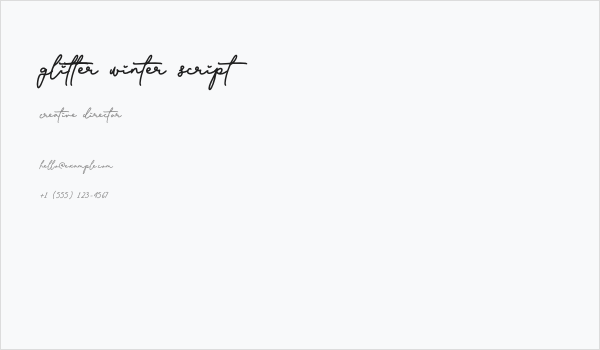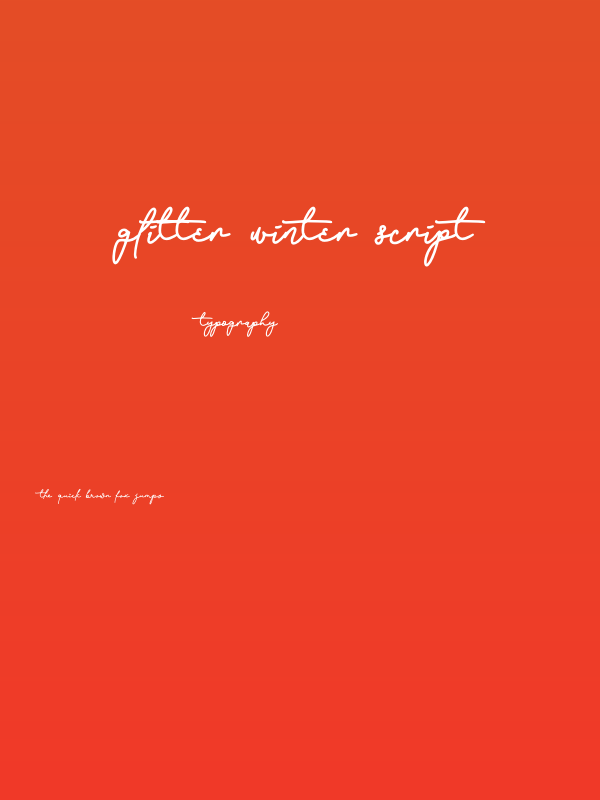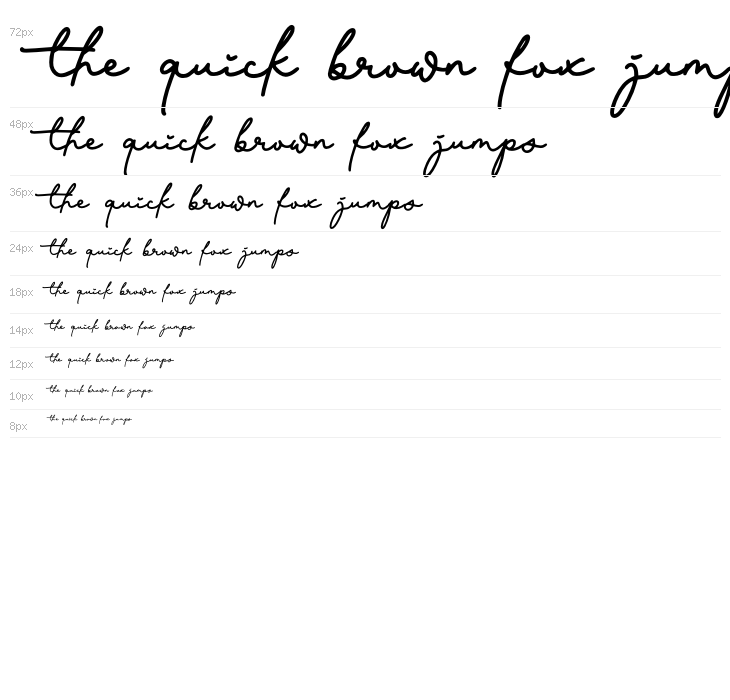
Glitter Winter Script Font
Glitter Winter Script Description
A flowing, connected script font with a handwritten, casual appearance. The strokes are smooth and slightly varied in thickness, giving it an organic and personal feel. Letters are slanted and feature long ascenders and descenders, with a playful yet elegant style.
| Overall Style | Handwritten, Decorative, Casual |
| Use Case | Logos, Headlines, Invitations, Social media posts |
| Proposed Projects | Greeting cards, invitations, branding, social media graphics, quotes, personal notes. |